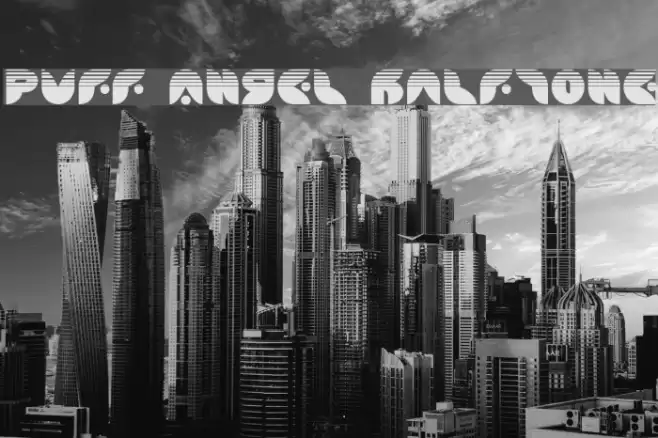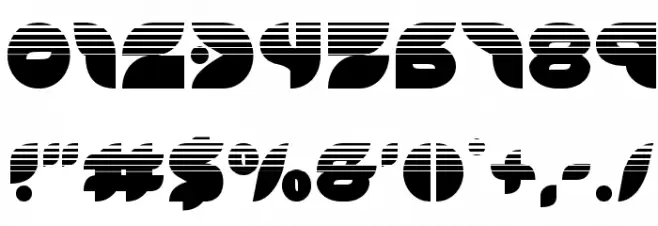
Puff Angel Halftone Font
Puff Angel Halftone Description
This font features a bold, geometric design with a unique halftone effect. Each character is composed of solid black shapes interspersed with horizontal white lines, creating a striking visual contrast. The letters are wide and rounded, giving them a modern and futuristic appearance. The use of negative space is prominent, adding to the font's distinctiveness. This style is highly decorative, making it ideal for eye-catching designs. The numbers and special characters maintain the same aesthetic, ensuring consistency across all elements.
A bold, geometric font with a halftone effect and modern, futuristic style from Uncategorized fonts.
- Proposed Projects: Ideal for posters, album covers, branding, and any project requiring a bold, modern aesthetic.